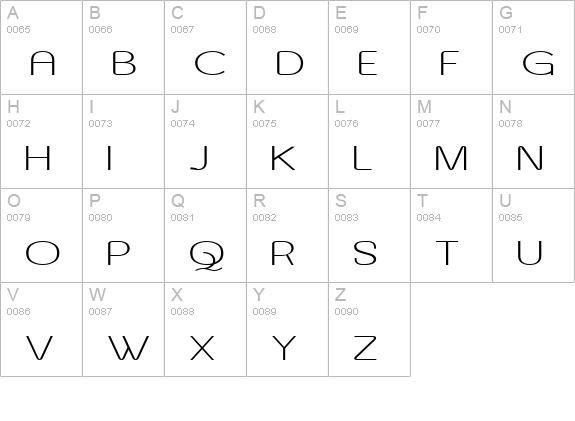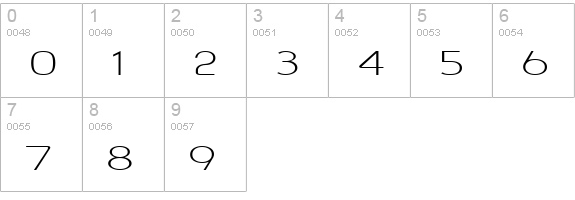
Asenine Wide Font Details
Asenine Wide is a distinctive, extended-width variant in the Asenine typeface family \xE2\x80\x94 well suited to design and typography projects.
Asenine Wide is a modern and versatile sans-serif font that exudes a sense of boldness and strength. Its clean lines and spacious characters make it perfect for a wide range of design projects, from branding to signage to editorial layouts. The wide letterforms add a unique touch to any design, making a strong visual impact. What sets Asenine Wide apart is not just its striking appearance, but also the fact that it is available for free download at FontsMarket.com. This means that you can easily access this high-quality font without any cost, making it a fantastic option for designers on a budget or anyone looking to add a touch of sophistication to their projects. Whether you're working on a website, logo, poster, or any other creative endeavor, Asenine Wide is sure to elevate your design with its modern aesthetic and timeless appeal. Download it for free today and see how this font can take your projects to the next level.